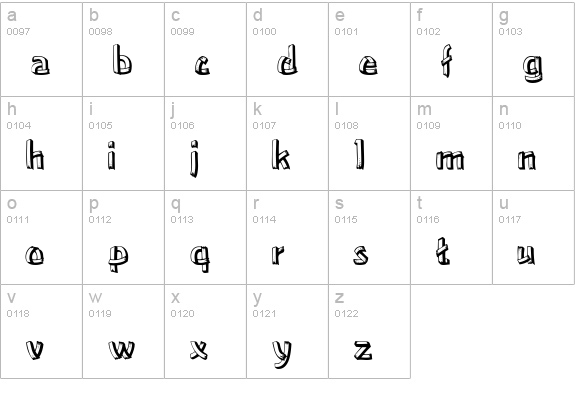
ClampettsDisplay Font Details
ClampettsDisplay font is a stunning and versatile display typeface that exudes a sense of elegance and sophistication. With its unique blend of classic and modern elements, this font is perfect for a wide range of design projects, from branding to editorial design and everything in between. The bold and eye-catching letterforms make a strong statement, while still maintaining a sense of refinement. What's even better is that ClampettsDisplay font is completely free to download at FontsMarket.com. You can add this stylish font to your collection without any cost, making it a valuable asset for any designer looking to elevate their work. Don't miss out on the opportunity to enhance your projects with the timeless charm of ClampettsDisplay font - download it for free today!